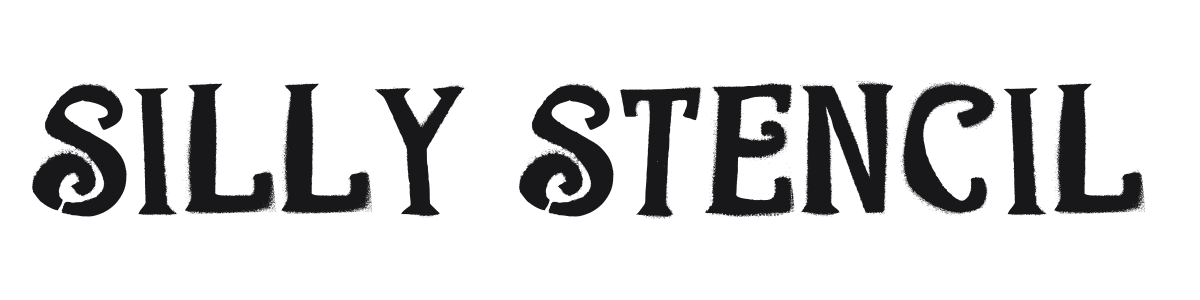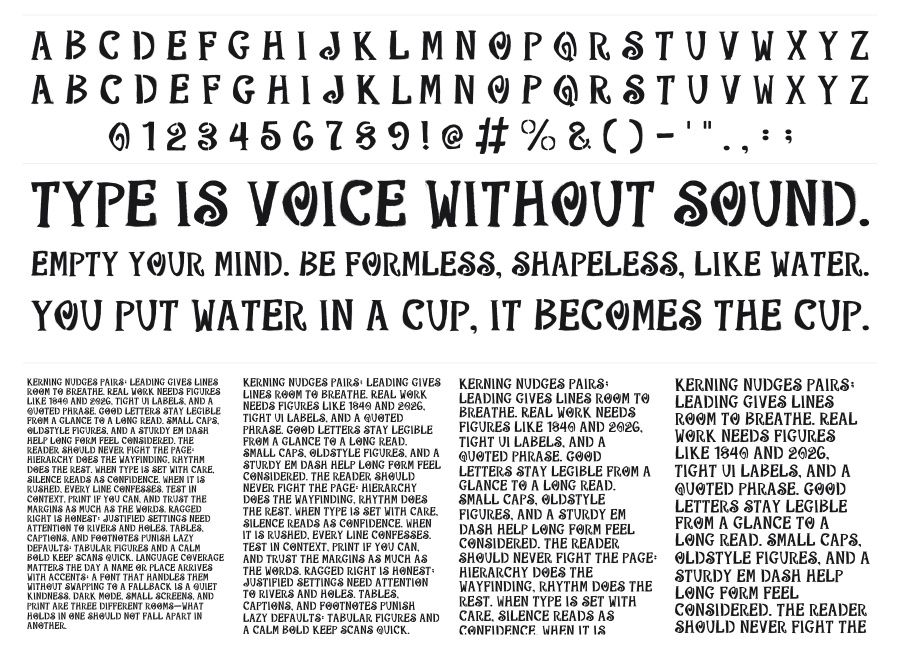
Silly Stencil
Silly Stencil is a bold, wide serif display font built around stencil-style cuts that interrupt strokes and serifs with playful precision. The rough, slightly irregular edges give it a hand-printed, woodblock feel that sits somewhere between carnival signage and folk art. It brings strong personality to posters, packaging, and any headline that needs character over polish.